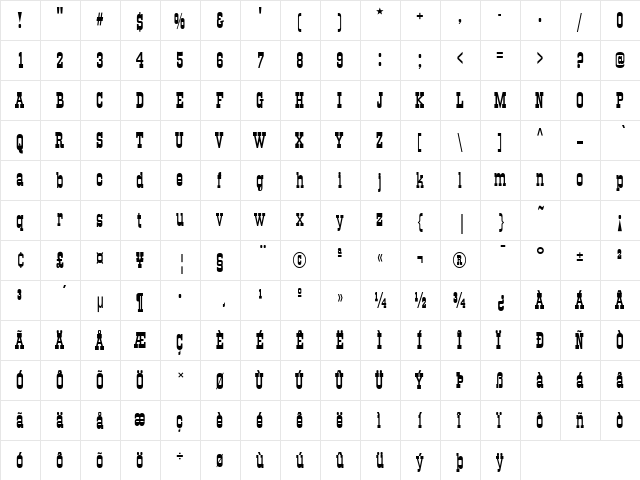
Old Towne No.536 Regular
Design Context for Old Towne No.536 Typeface
Old Towne No.536 offers clean, dependable letterforms without strong stylistic allegiance, making it a practical choice for designers who need flexibility.